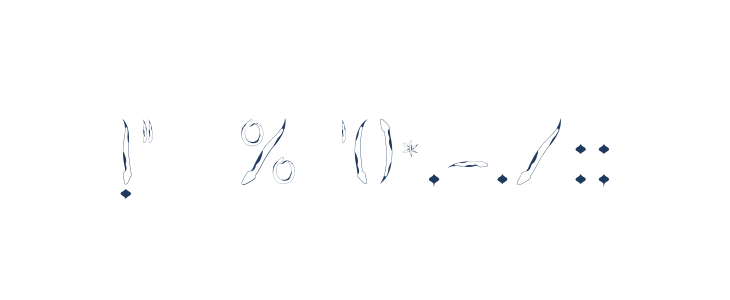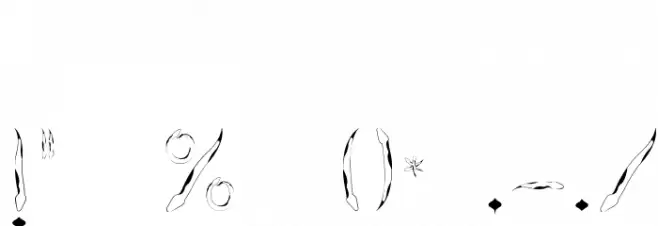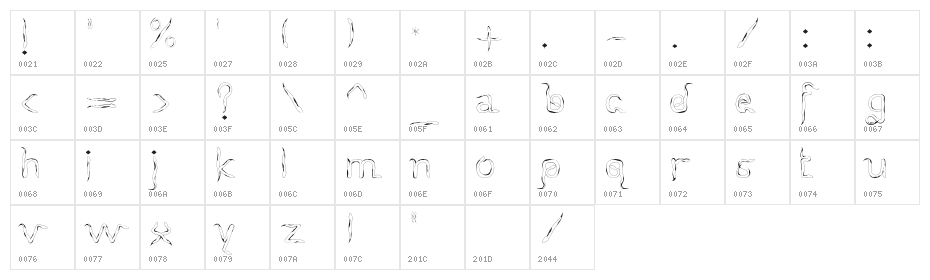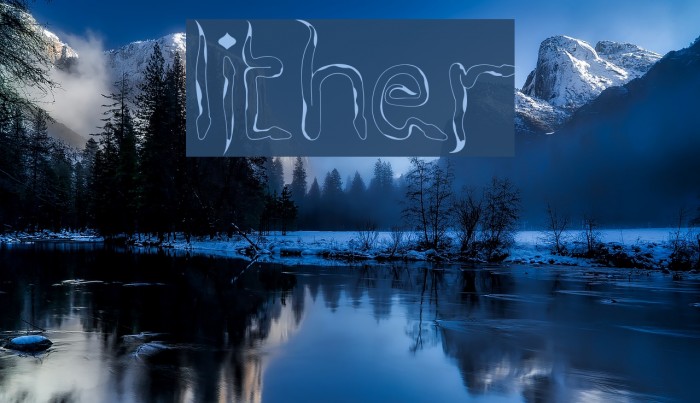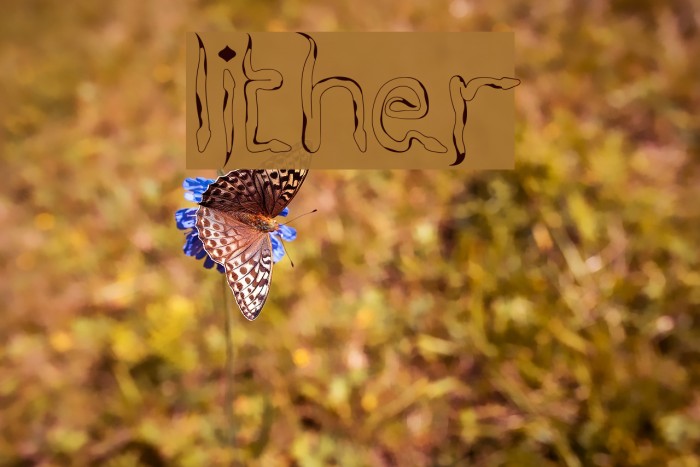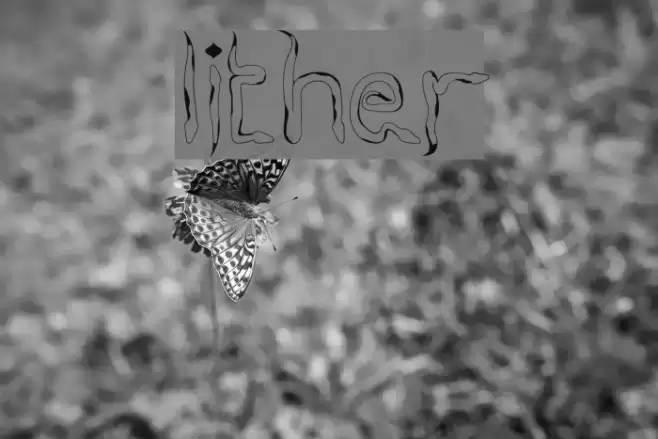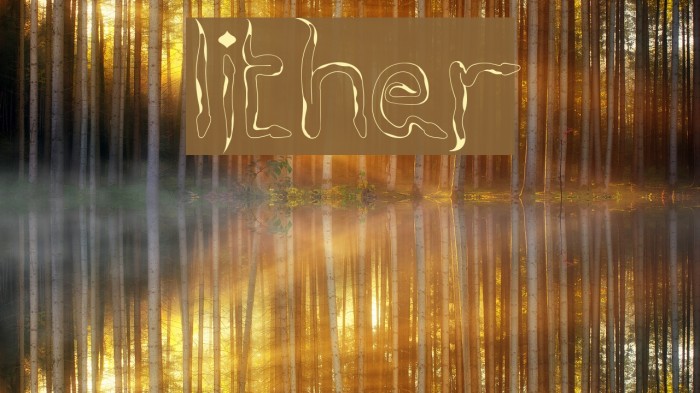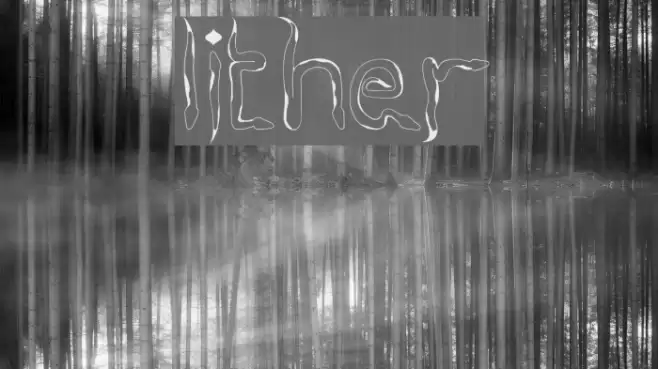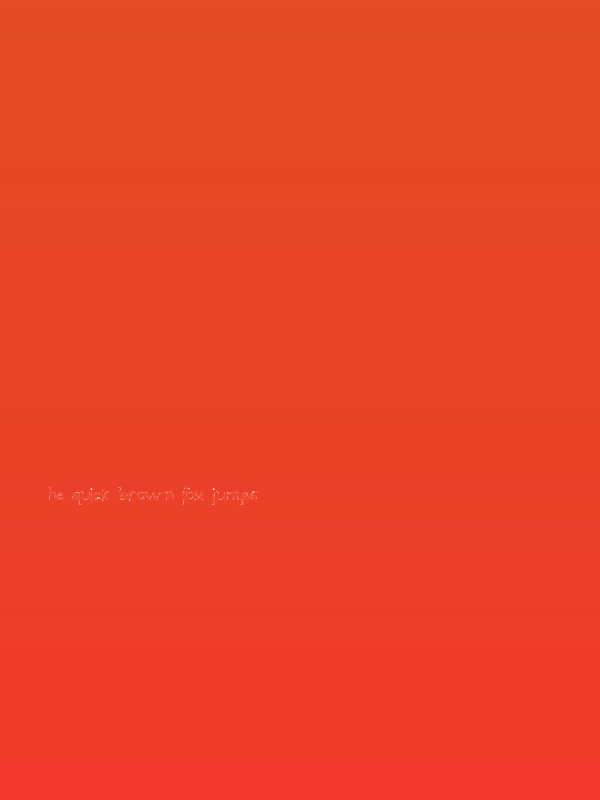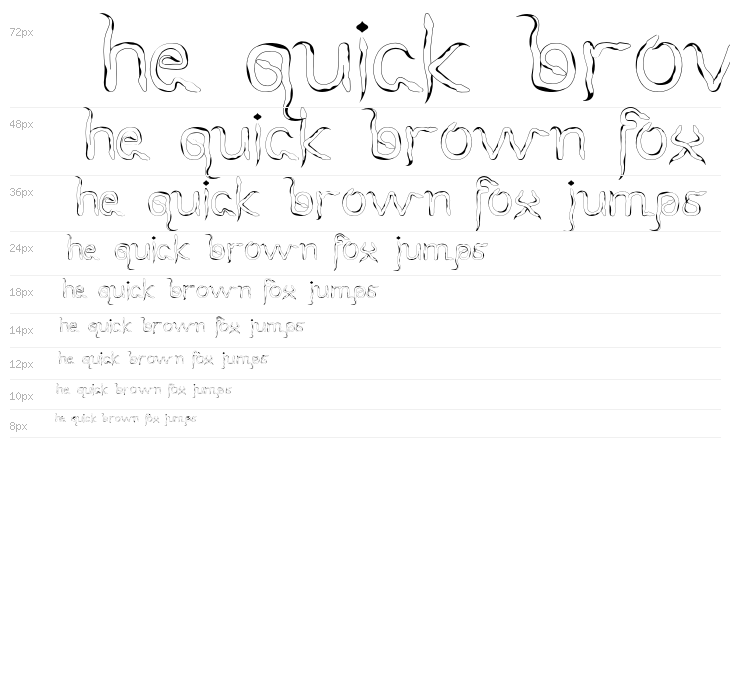
SlitherNN Font
SlitherNN Description
This font features a unique and playful design, with each character resembling a snake-like form. The letters have a fluid, wavy appearance, giving them a dynamic and whimsical feel. The strokes vary in thickness, adding to the organic and lively nature of the font. The overall look is both creative and eye-catching, making it suitable for projects that require a fun and engaging aesthetic.
| Proposed Projects | Ideal for children's books, playful branding, creative posters, and unique invitations. |